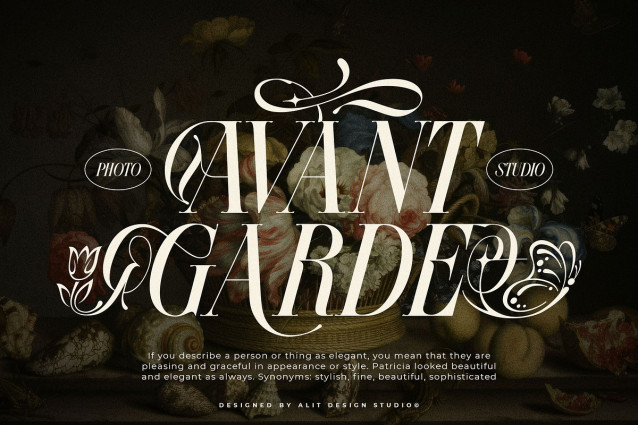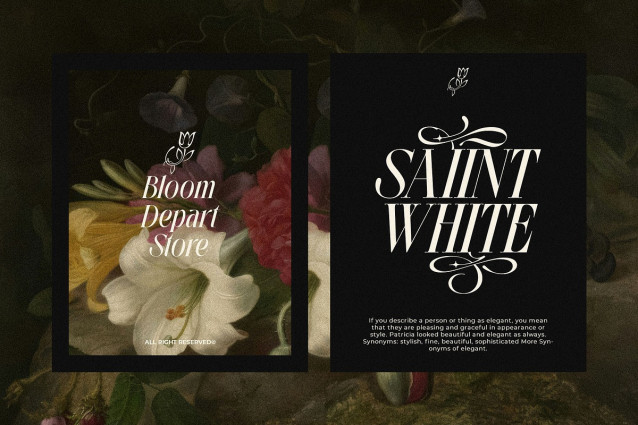
Nothina Mount Font
Nothina Mount Font is a luxurious serif typeface designed with a distinctive slanted posture, flowing curves, and expressive swashes that bring a sense of romantic sophistication to any project.
Blending the structural integrity of traditional serif fonts with the expressive charm of handwritten scripts, Nothina Mount is more than just a font—it’s a statement of beauty and craftsmanship. Floral motifs, ornate ligatures, and calligraphy-style terminals make this typeface ideal for high-end branding, editorial headlines, wedding suites, and nature-themed visuals.